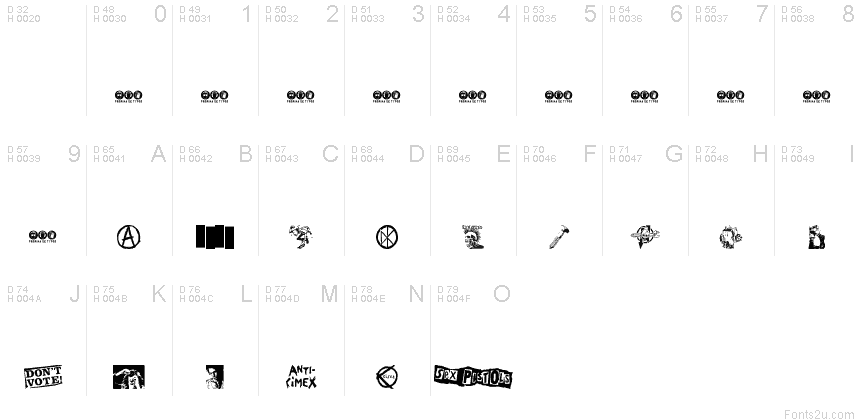
PUNK DINGBATS
Punk Dingbats, designed by Marcio Hirosse, is a free punk dingbats font built from protest-sign symbols, rough collage imagery, and hand-marked emblems. The set leans hard into zine culture and street politics, with circles, slashes, stark black fills, and scratched-up forms that feel pasted from flyers, badges, and photocopied ephemera.
This free font works naturally in album sleeves, gig posters, club flyers, skate zines, and activist graphics where you want image fragments rather than ordinary lettering. It also suits title cards, sticker-style branding, and short cover lines, because the marks read like ready-made visual slogans instead of neutral ornaments.